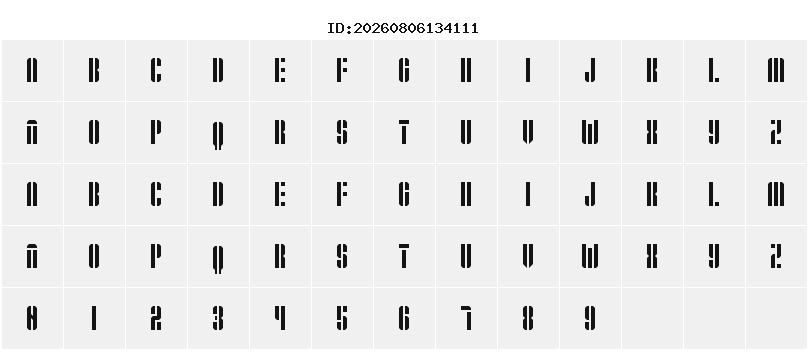
• Font Name: Operation
• Designer: GeronimoFonts
About Operation.ttf
Operation.ttf is a modern, elegant sans-serif font designed for ultimate readability and visual harmony. Perfect for branding, headlines, web design, and print materials.